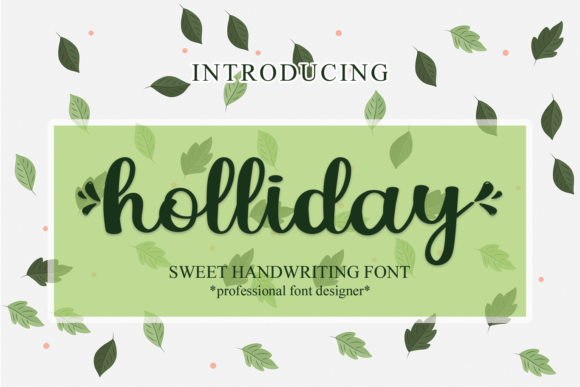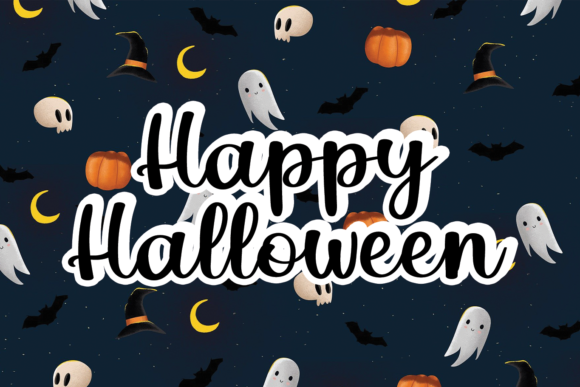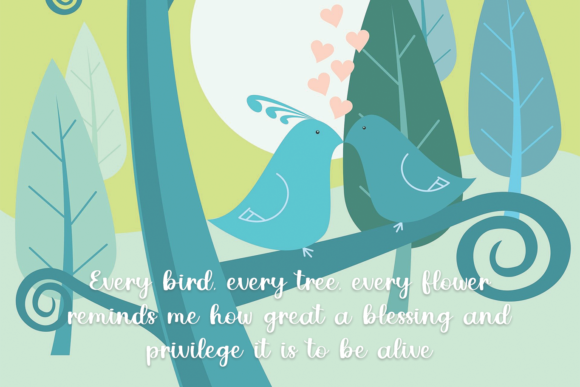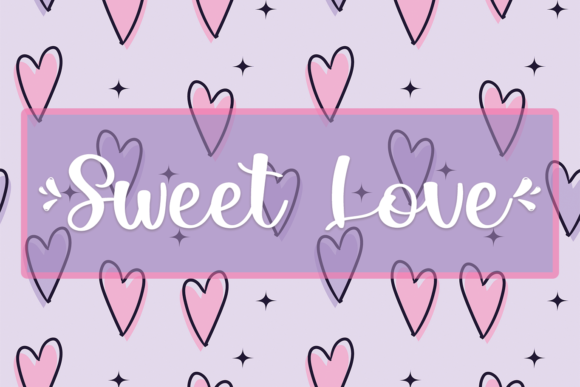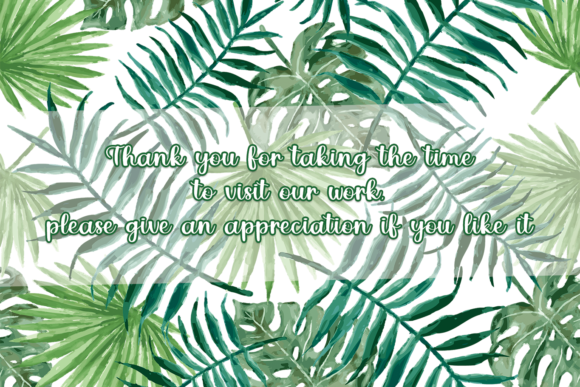
Holliday Font
About Holliday Font
Holliday is a sweet and delicate handwritten font. Dainty and joyful, this font will be ideal for writing wedding invitations, cards or any other design that may need a romantic, personalized touch!